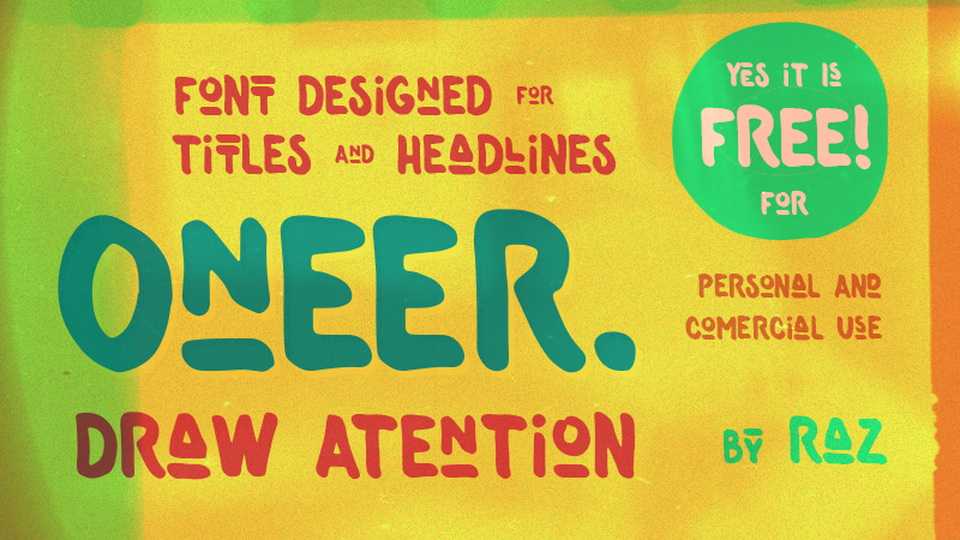
Download Oneer font, a simple yet striking handwritten font designed for titles and headlines. With its mixed letter combinations Oneer font is also great for retro projects, labels, badges, animations and cartoons.
Designer: Petar Acanski